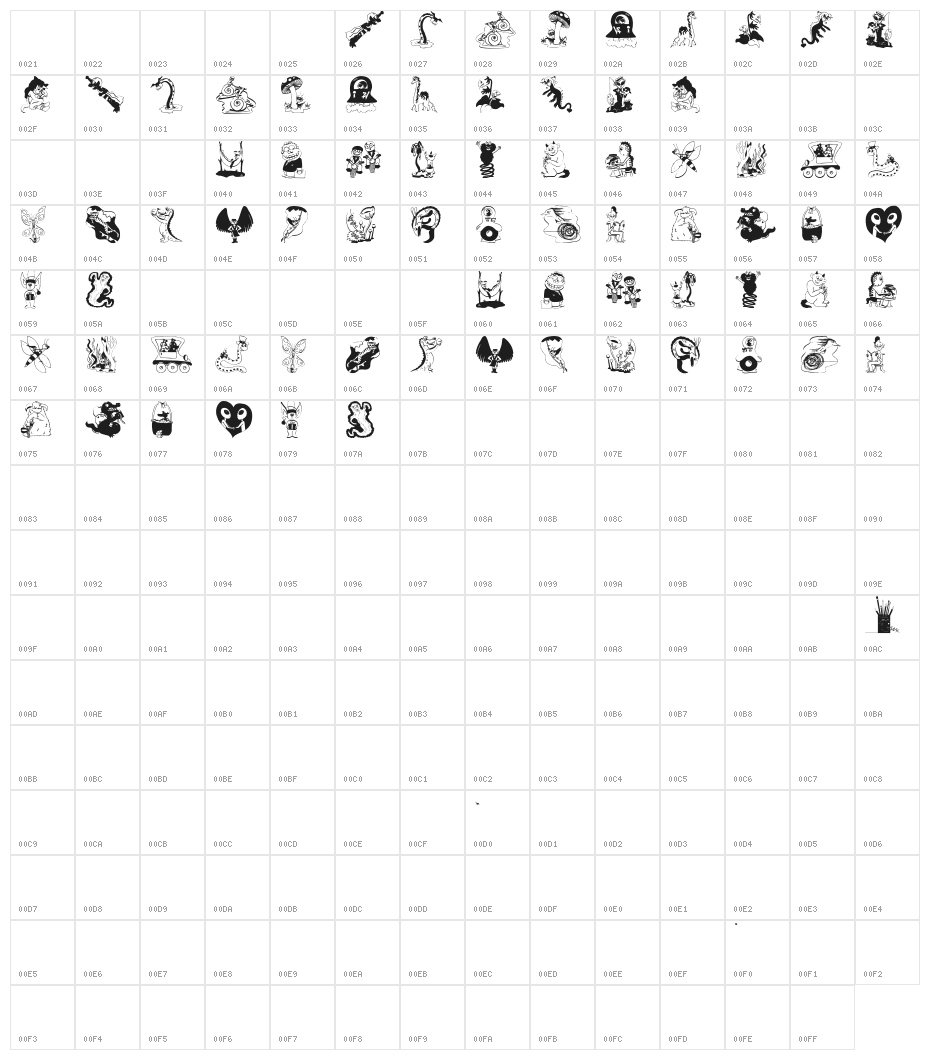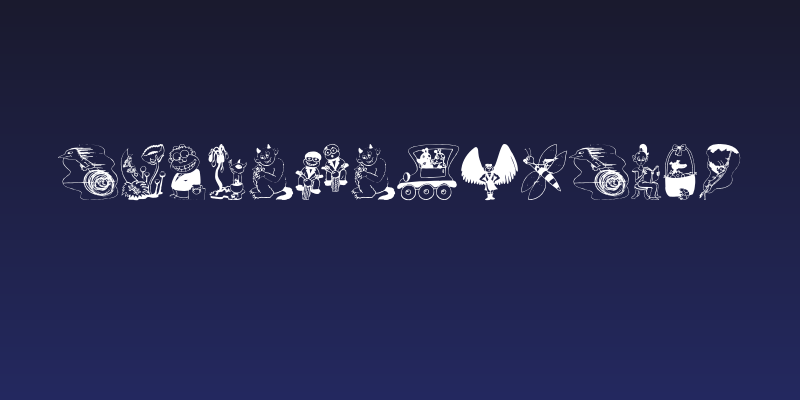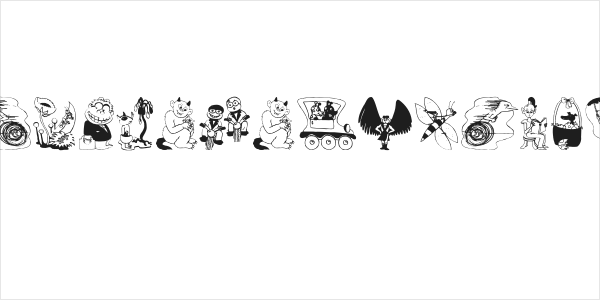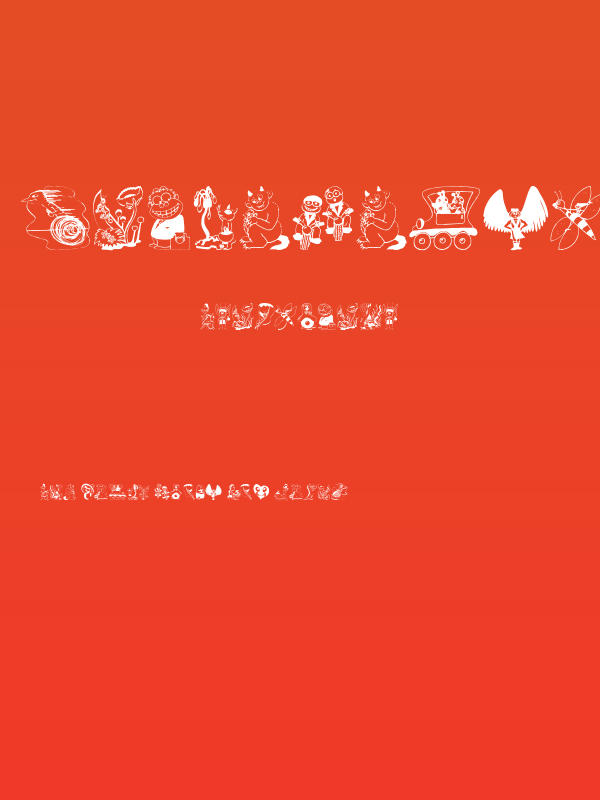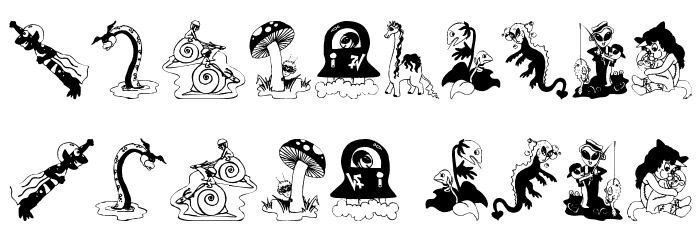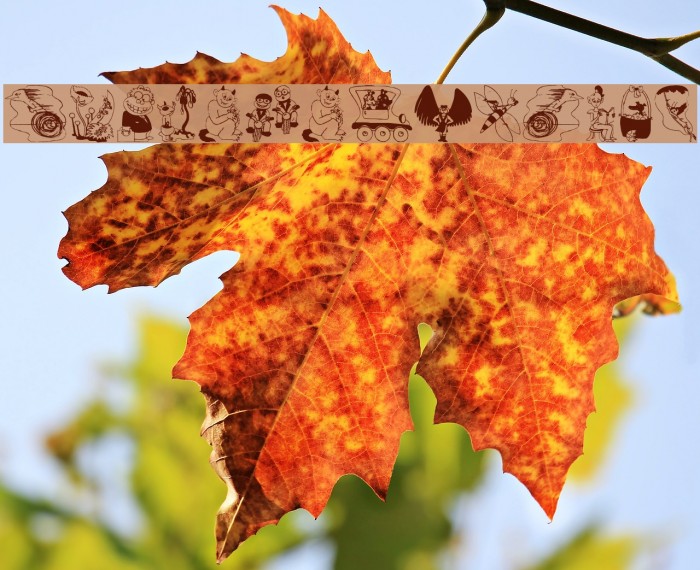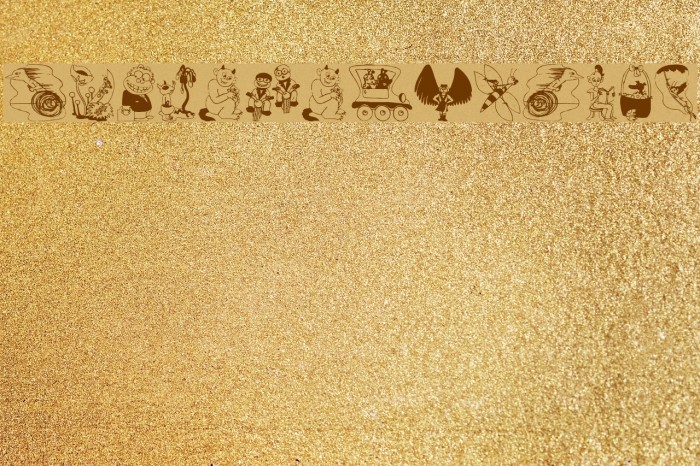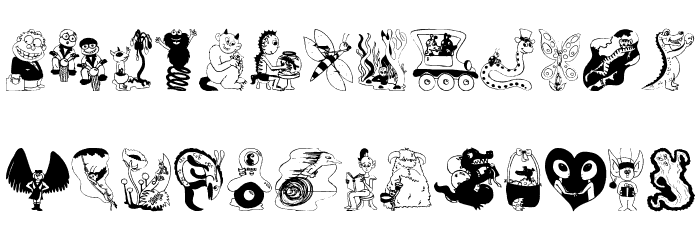
SpaceBeingsTwo Font
SpaceBeingsTwo Description
This is not a traditional font but rather a collection of whimsical and imaginative illustrations featuring various space-themed beings and creatures. Each character is uniquely designed, showcasing a range of quirky and fantastical elements. The illustrations are detailed and playful, making them suitable for creative projects that require a touch of humor and imagination. The characters include a mix of aliens, monsters, and otherworldly figures, each with distinct features and expressions. This collection is ideal for projects that aim to capture a sense of wonder and creativity.
| Use Case | Illustrations, Creative projects |
| Proposed Projects | Ideal for children's books, creative posters, novelty merchandise, and themed party invitations. |